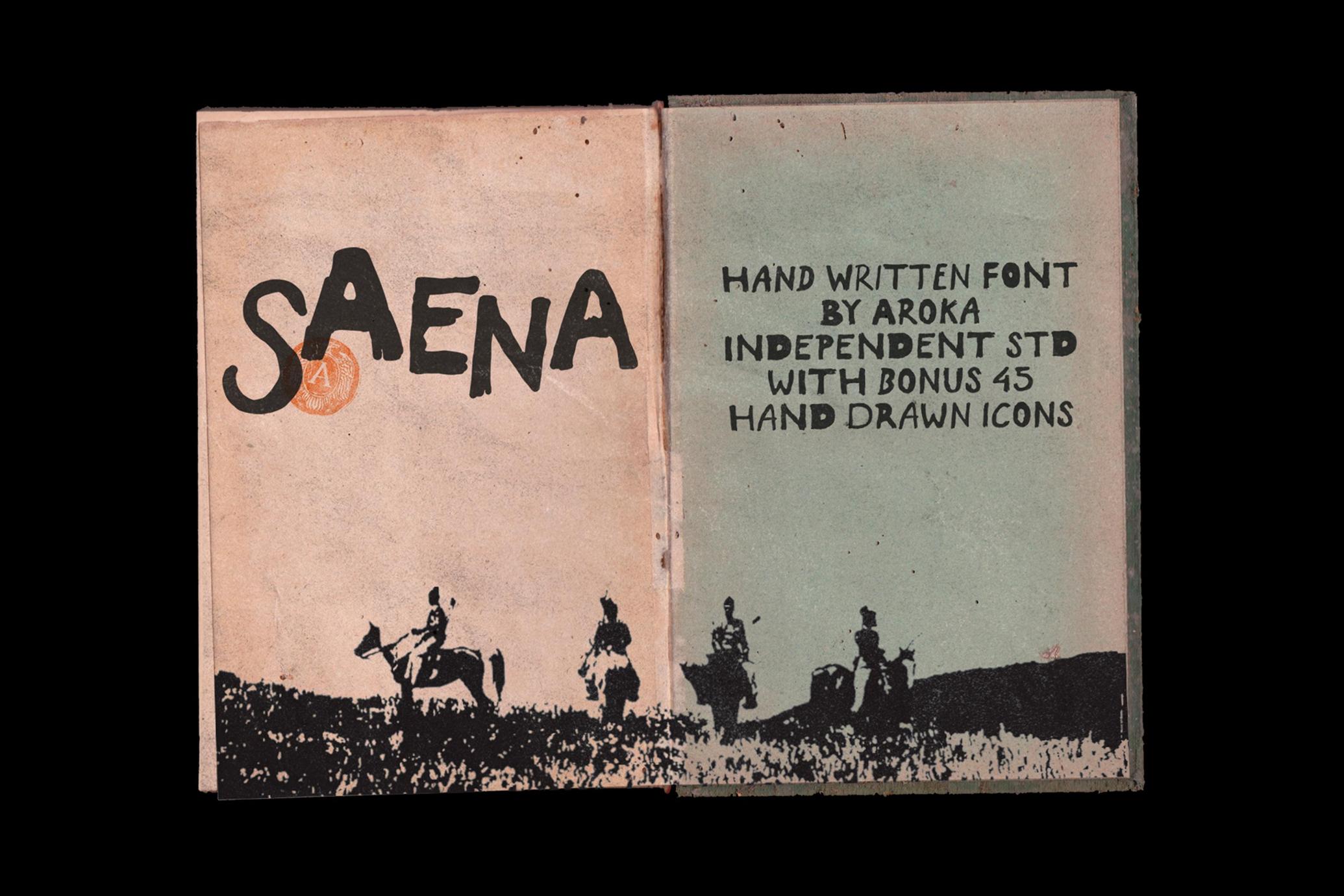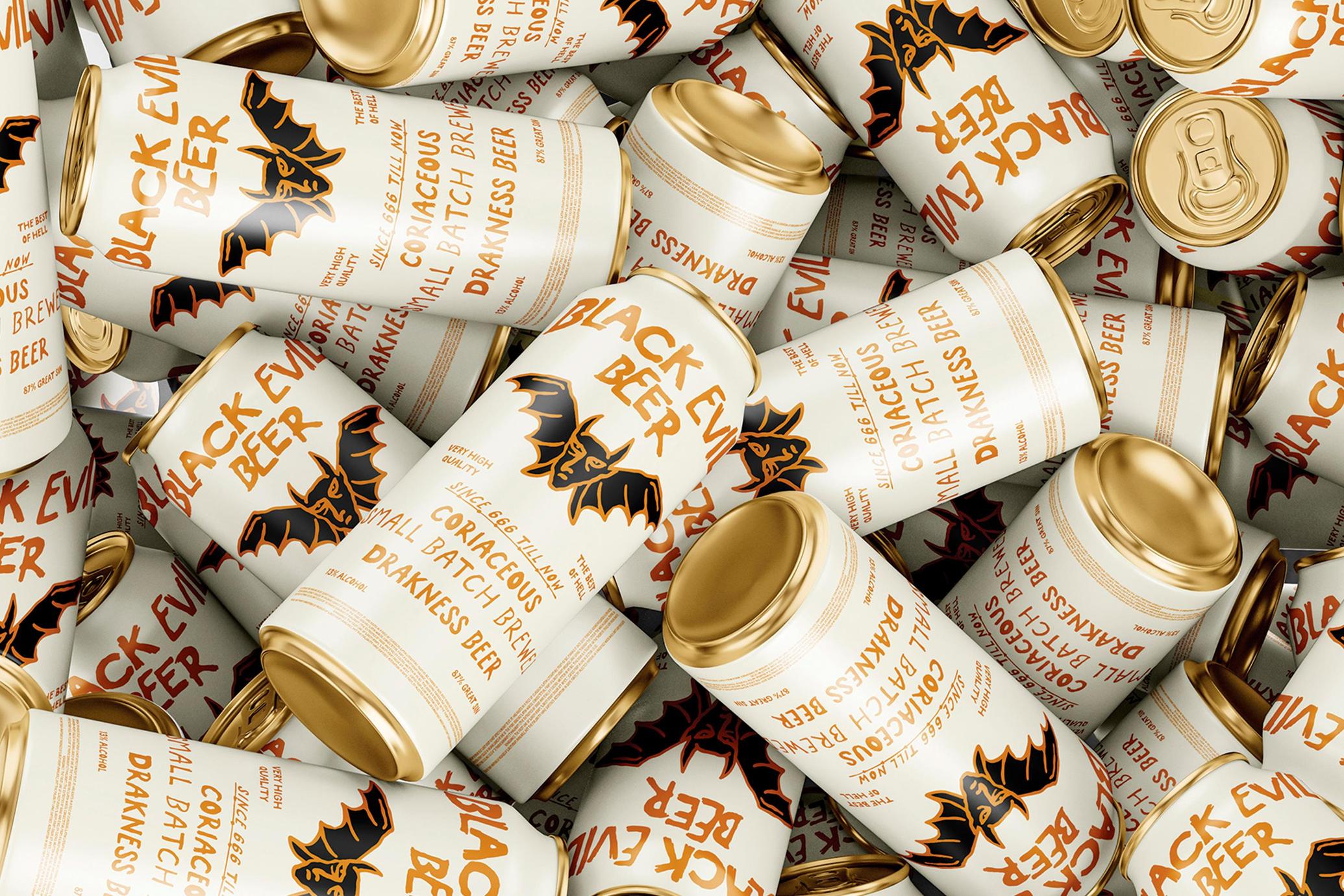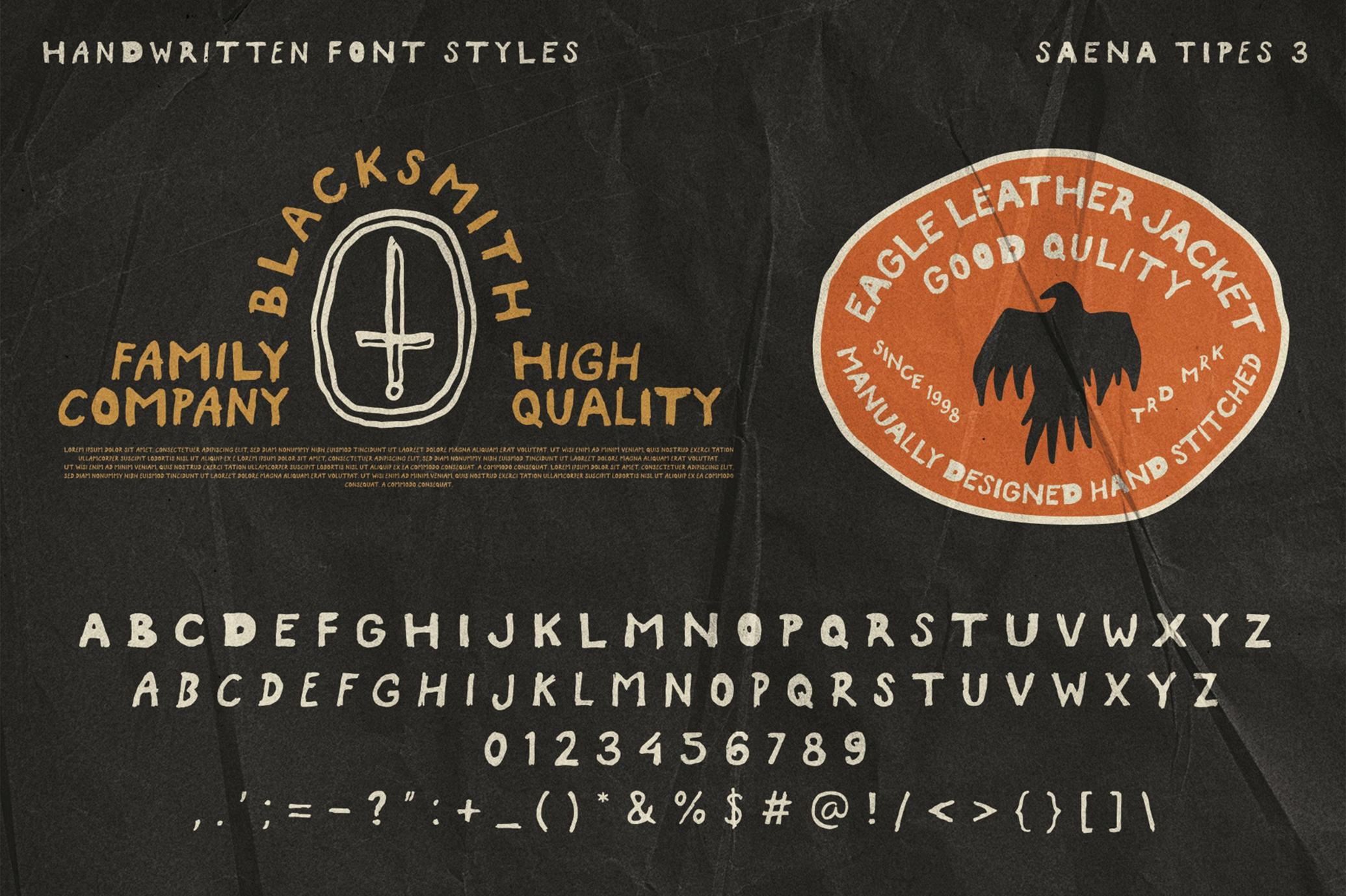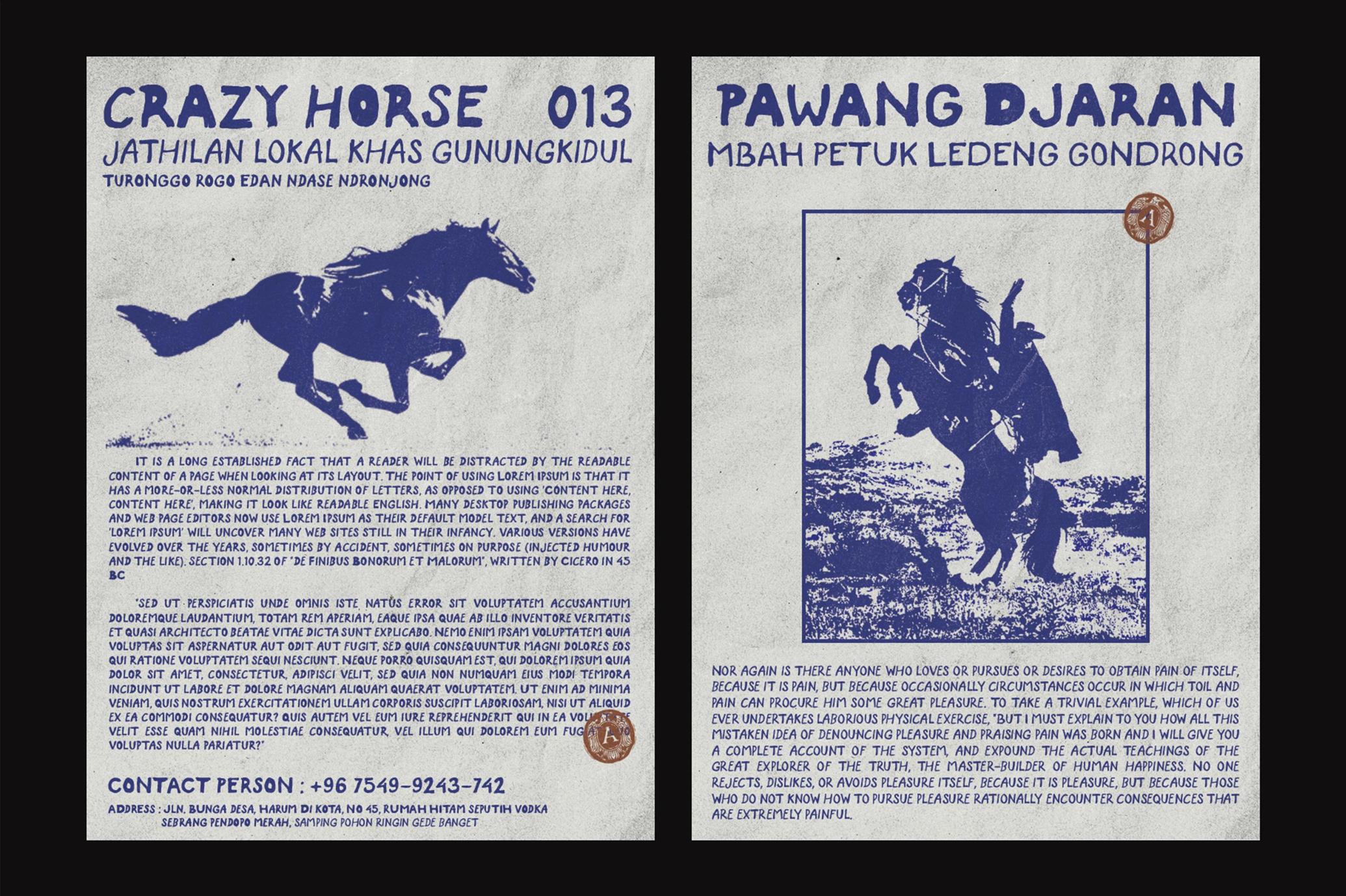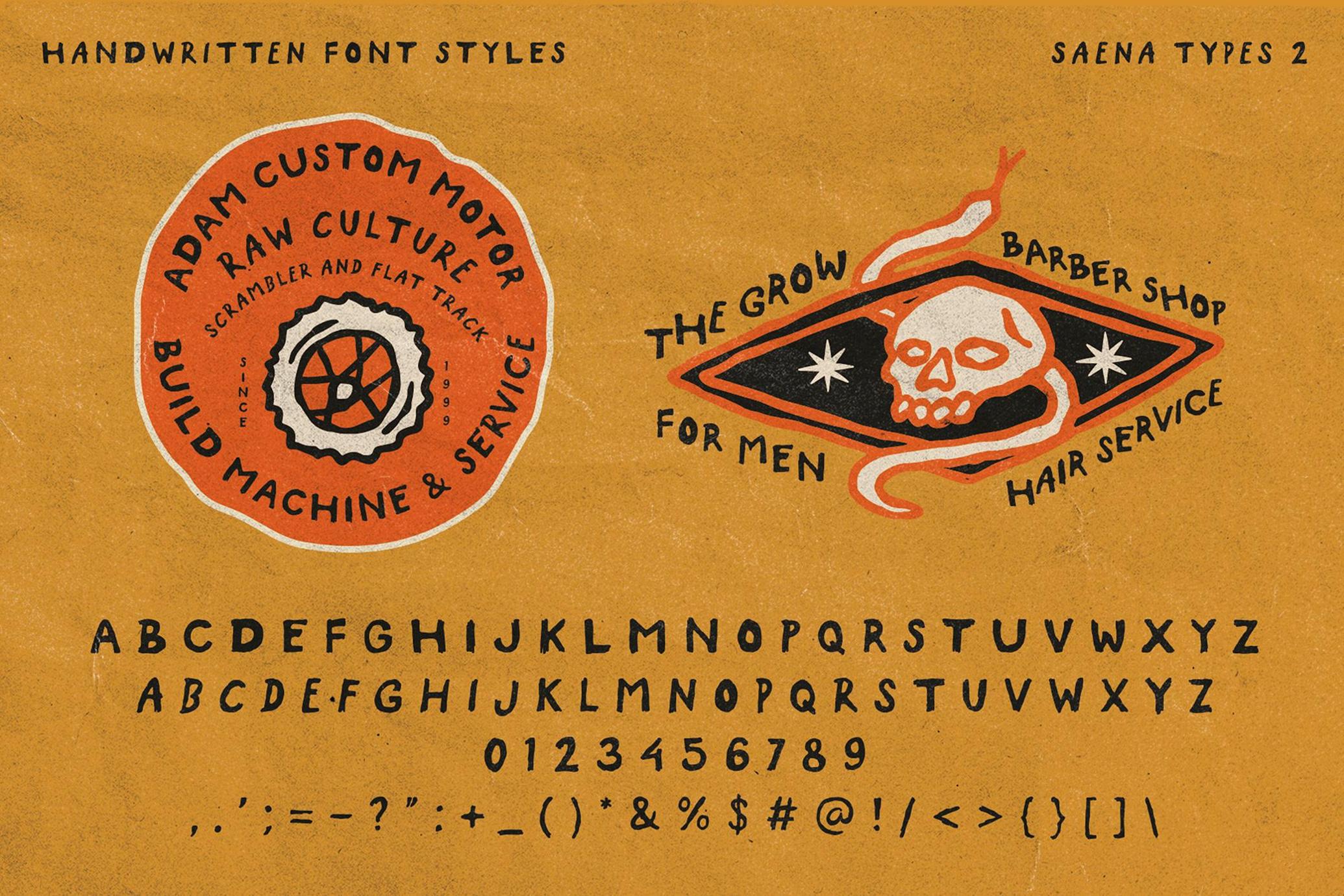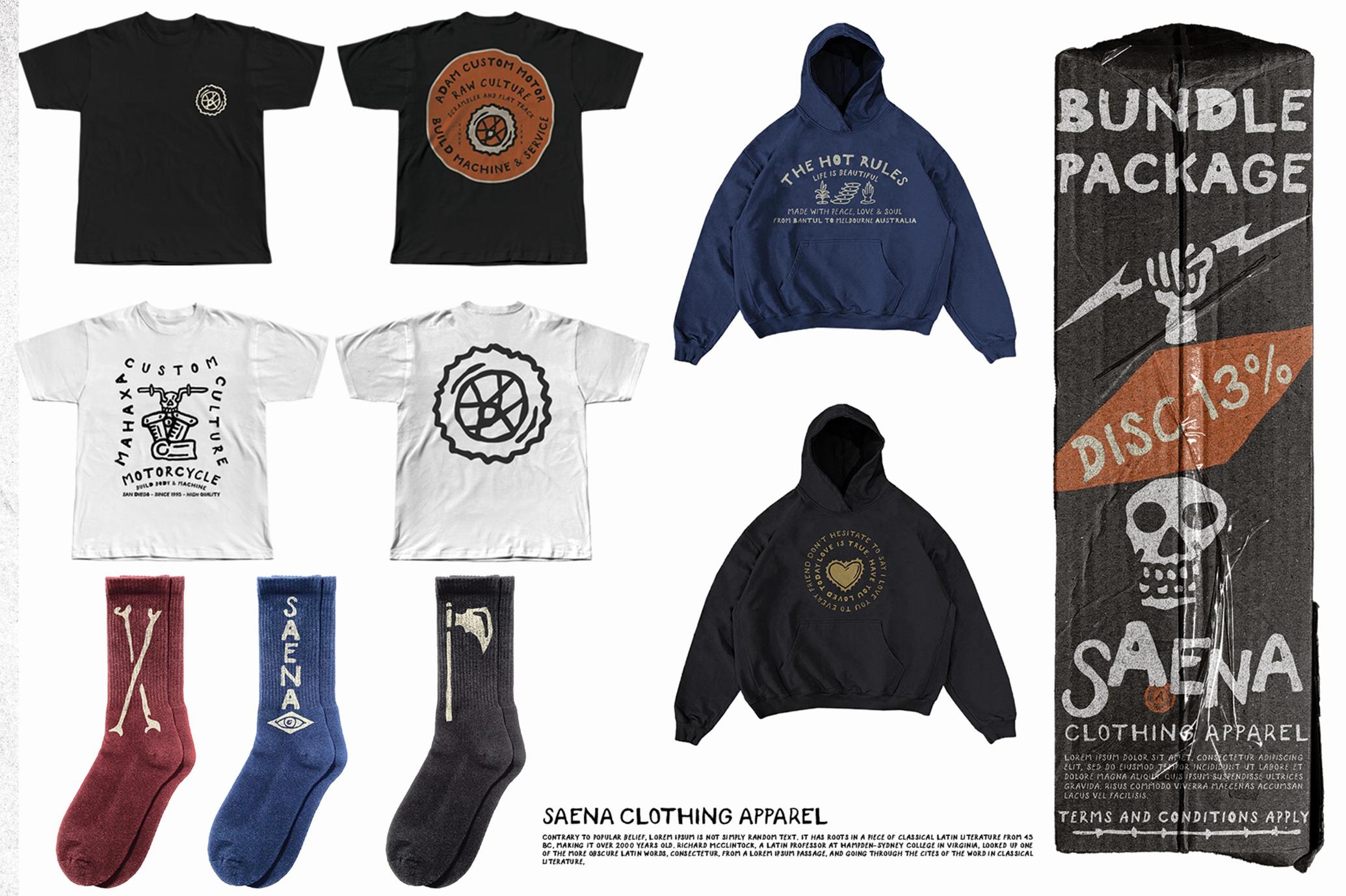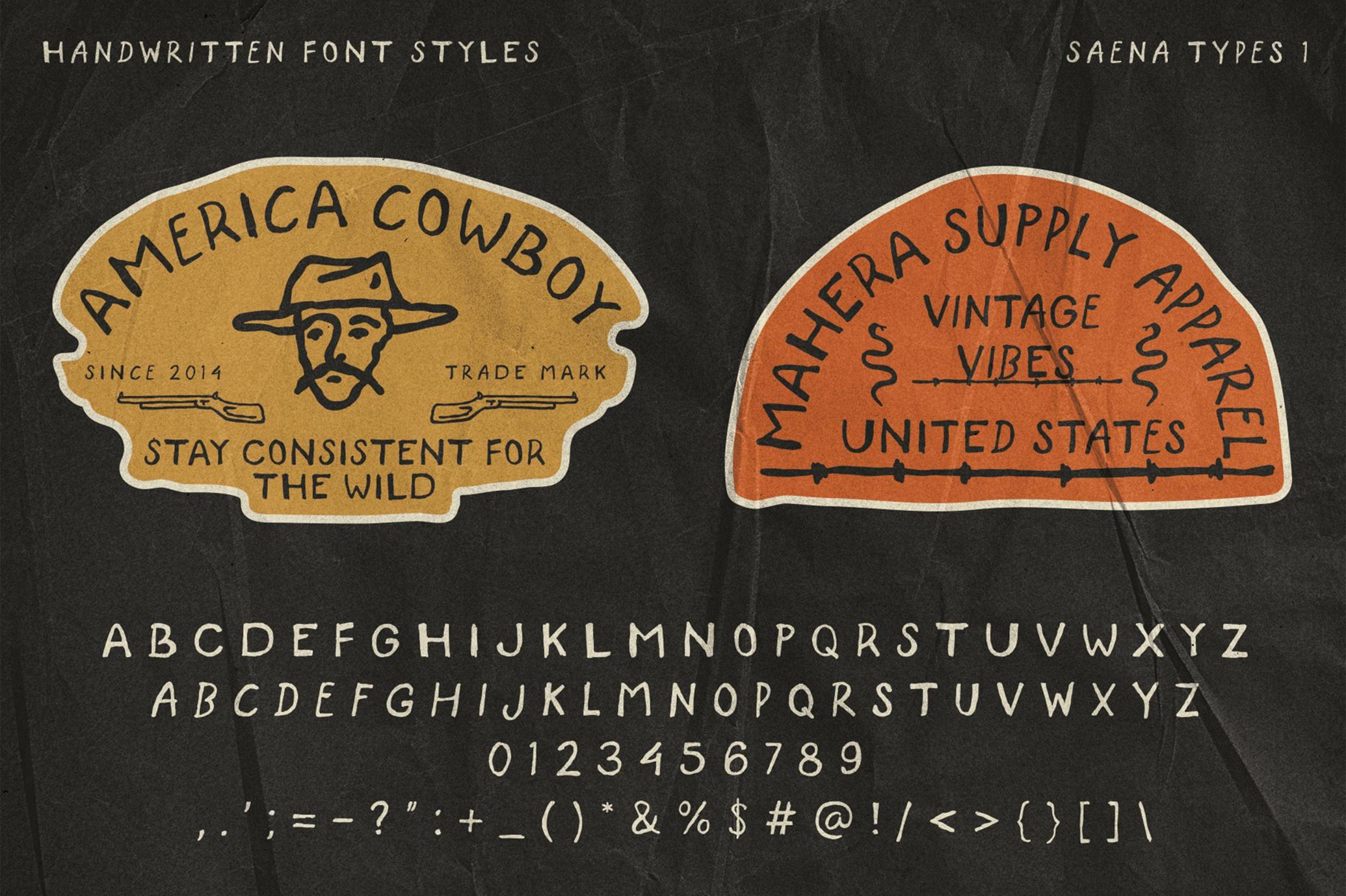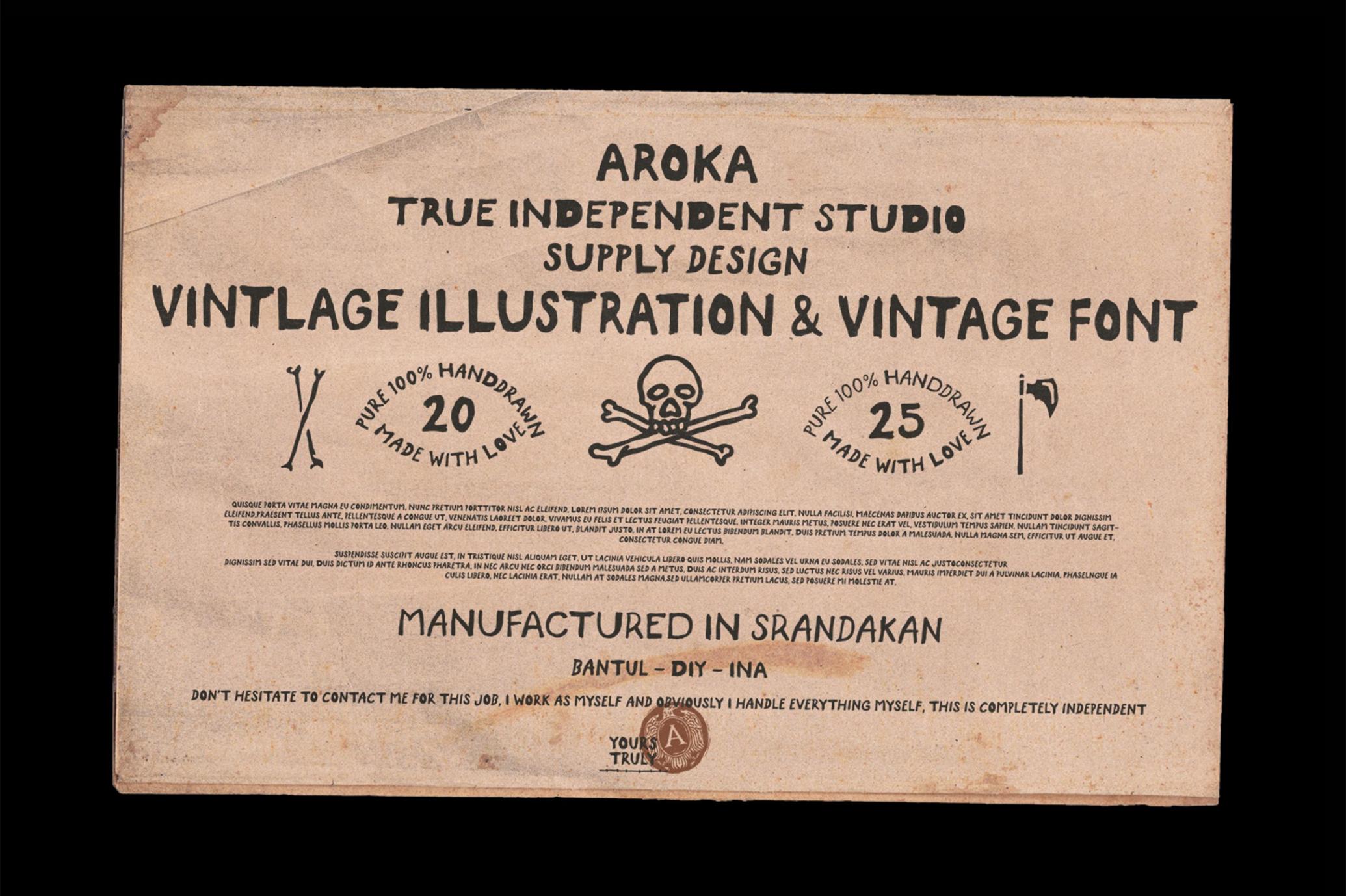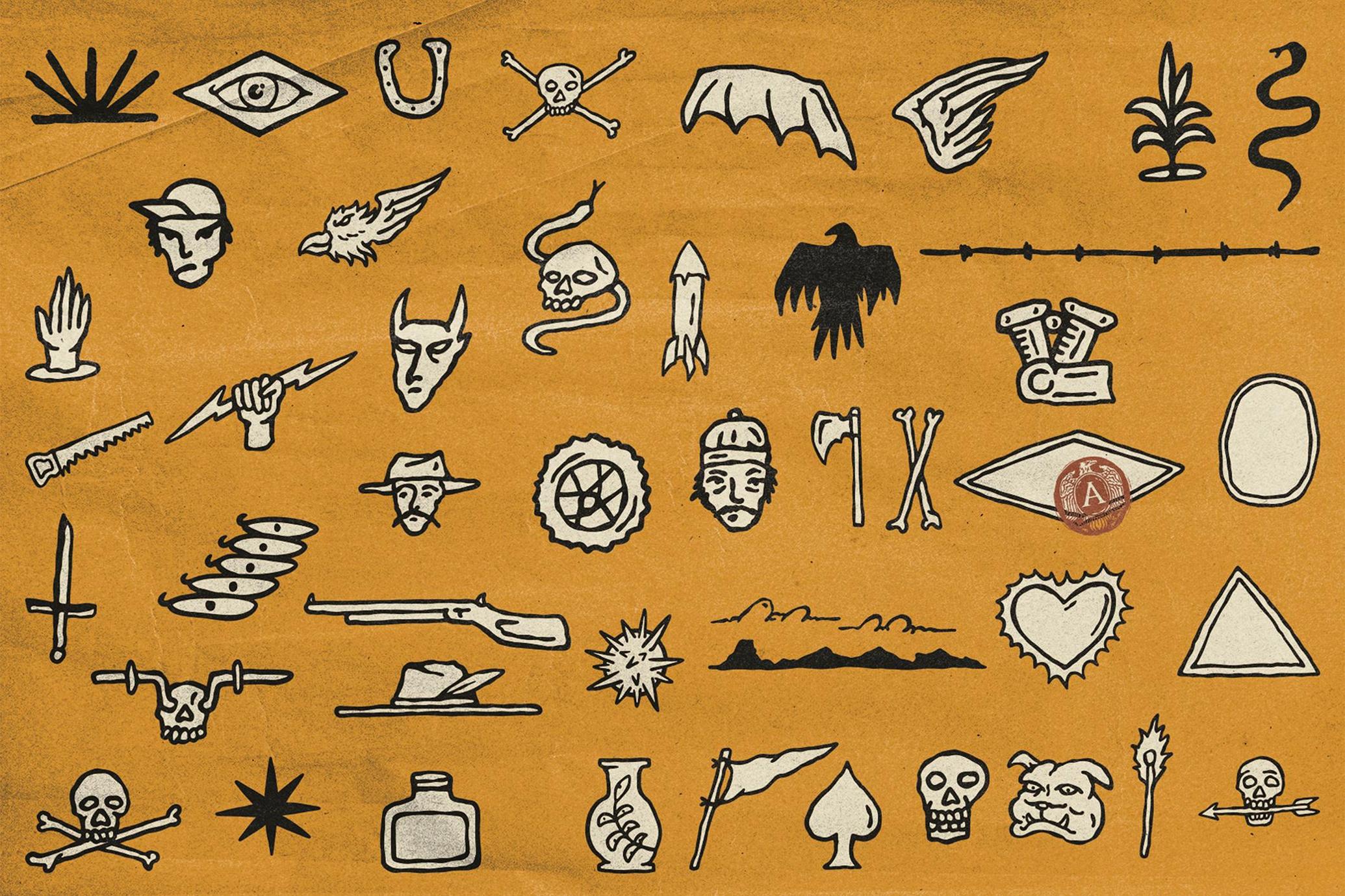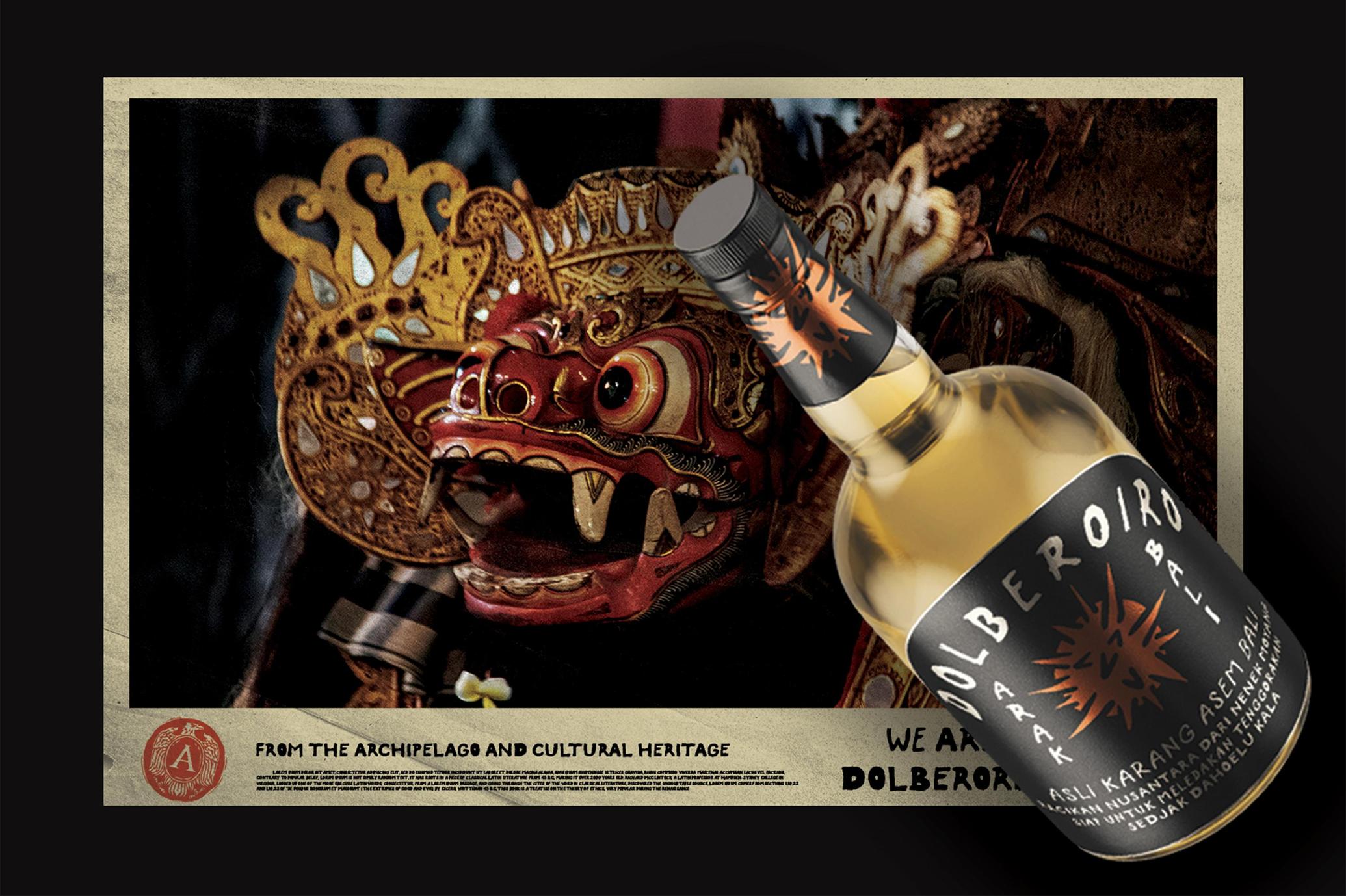
SAENA Hand-Written Font
SAENA delivers a raw, hand-drawn voice with grit, worn-in yet purposeful. Three all-caps styles play off each other naturally, offering built-in contrast for signage, packaging, editorial spreads, and apparel graphics.
Uppercase and lowercase sets each bring unique variations, allowing organic texture without repetition. The font supports punctuation, numerals, and multilingual characters. It also comes with 45 hand-drawn vintage icons in the same rugged line style — ideal for badges, labels, and supporting visuals.